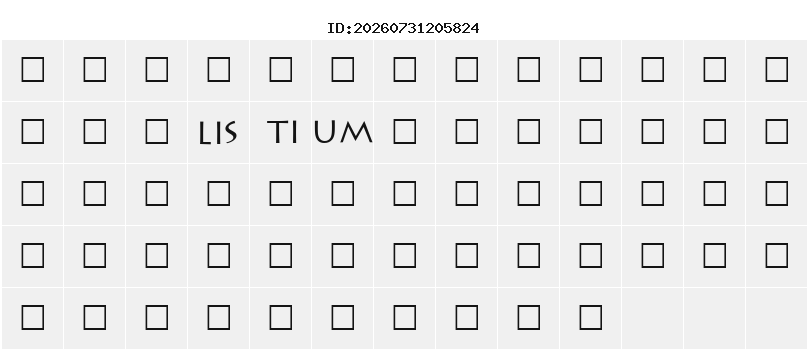
Leaflet.ttf is a modern, elegant sans-serif font designed for ultimate readability and visual harmony. Perfect for branding, headlines, web design, and print materials.